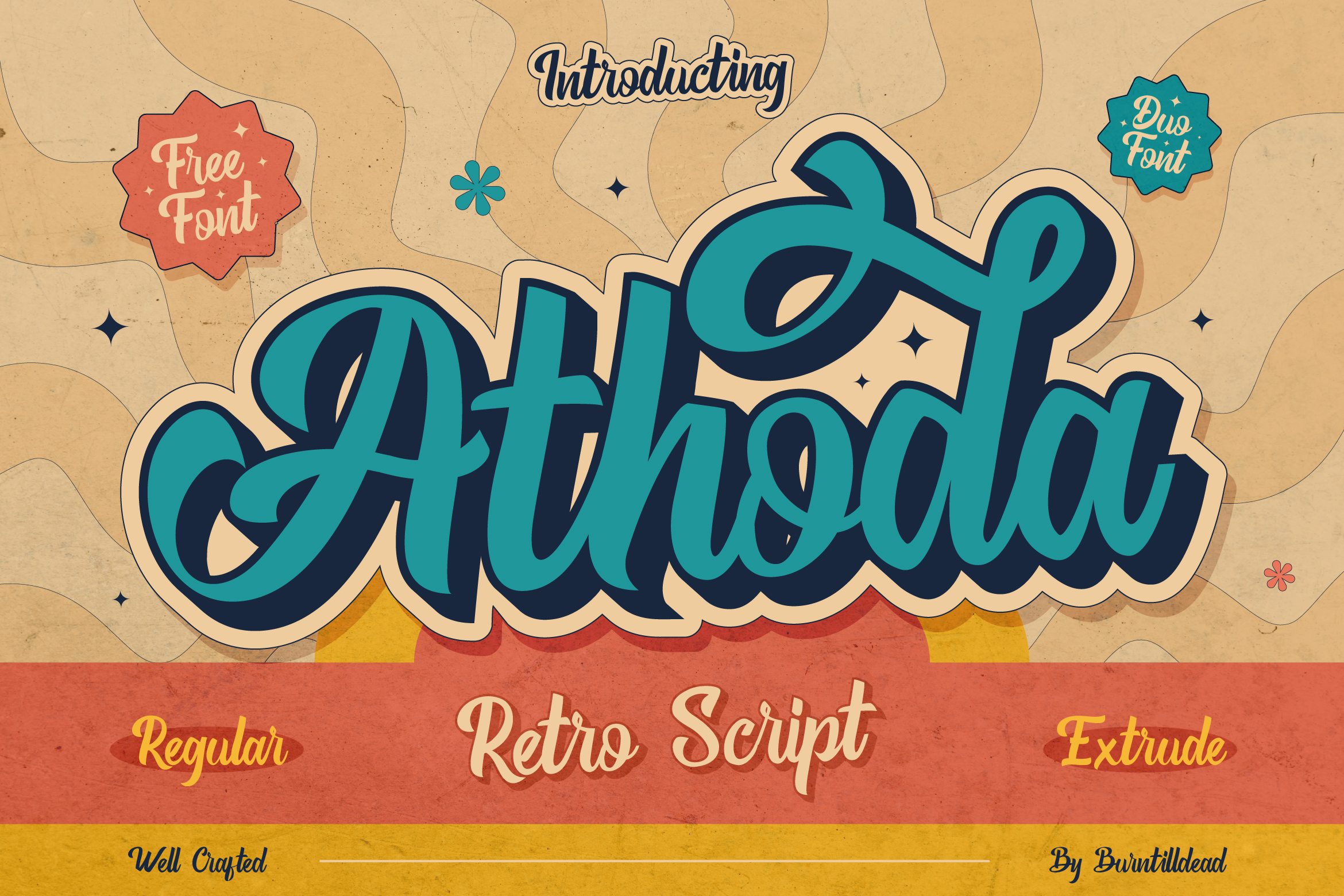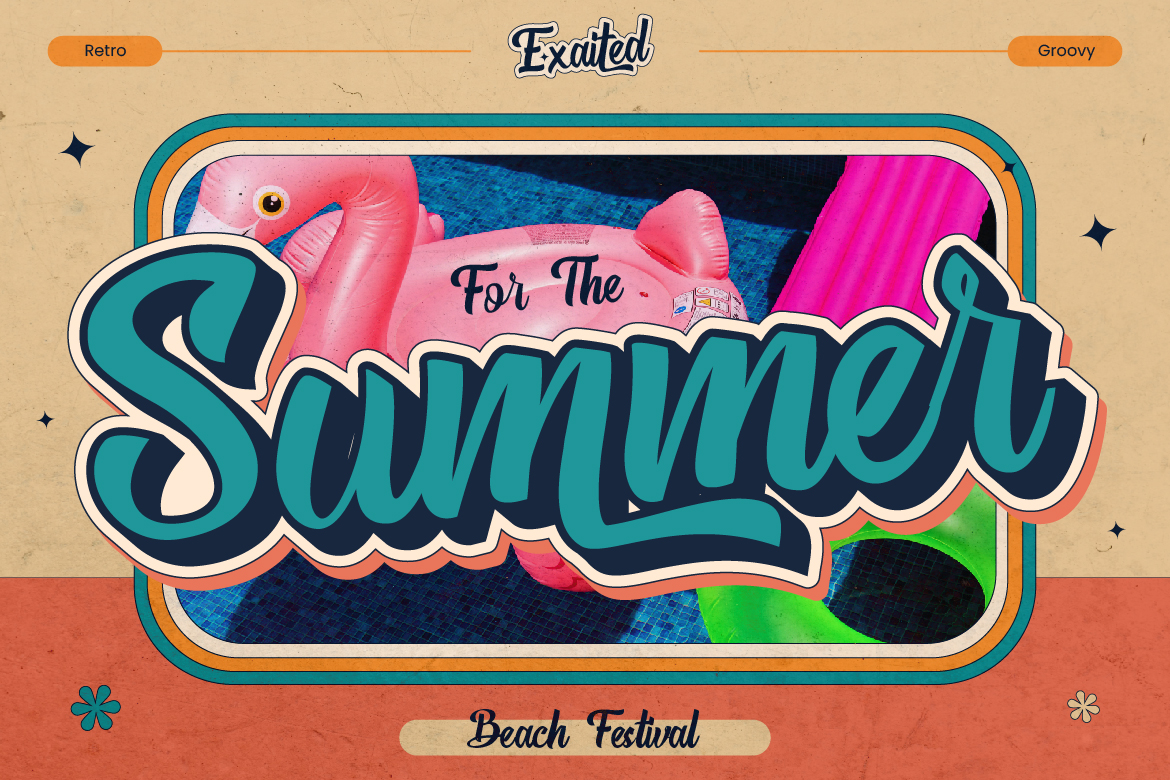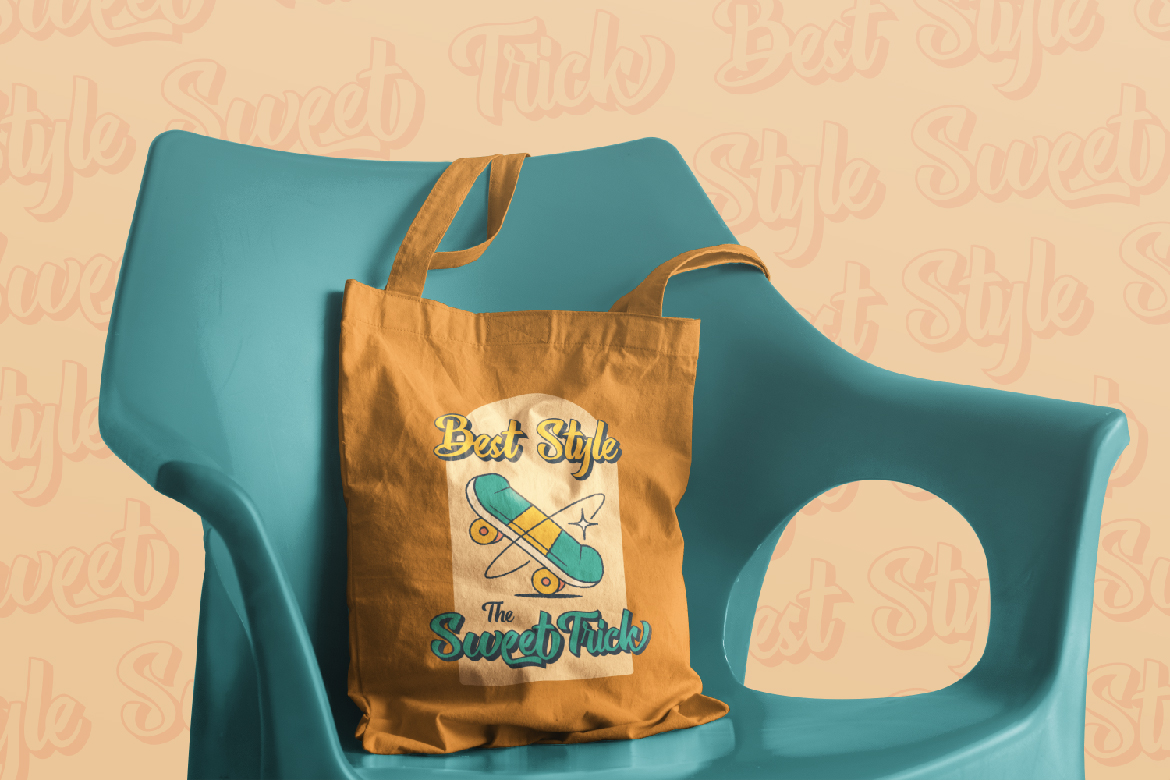
- Athoda
Regular
Extrude
Hey! Let us introduce our new font, Athoda. So Athoda is our retro script that inspired by 70’s era. Brings you to the positive vibes and groovy style. Athoda have 2 styles, regular and extrude. Perfectly for any purpose with retro and groovy concept theme.